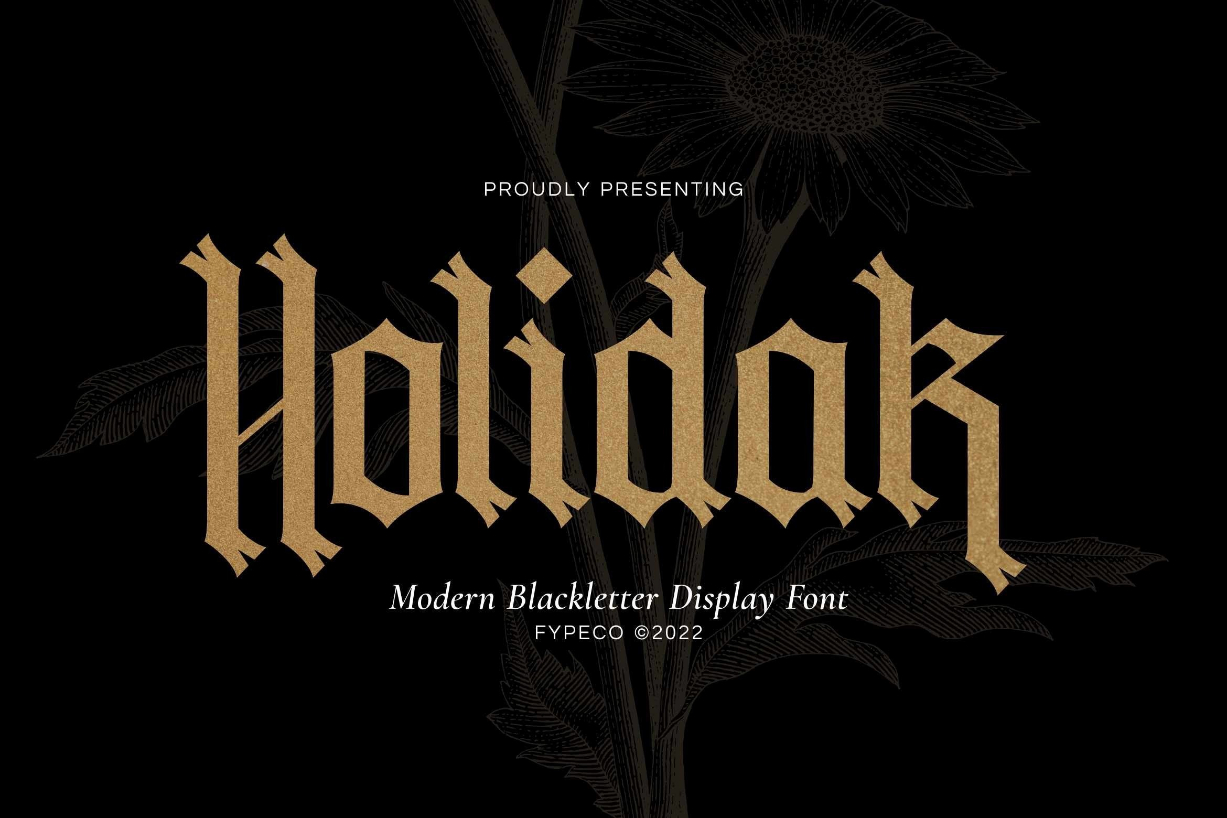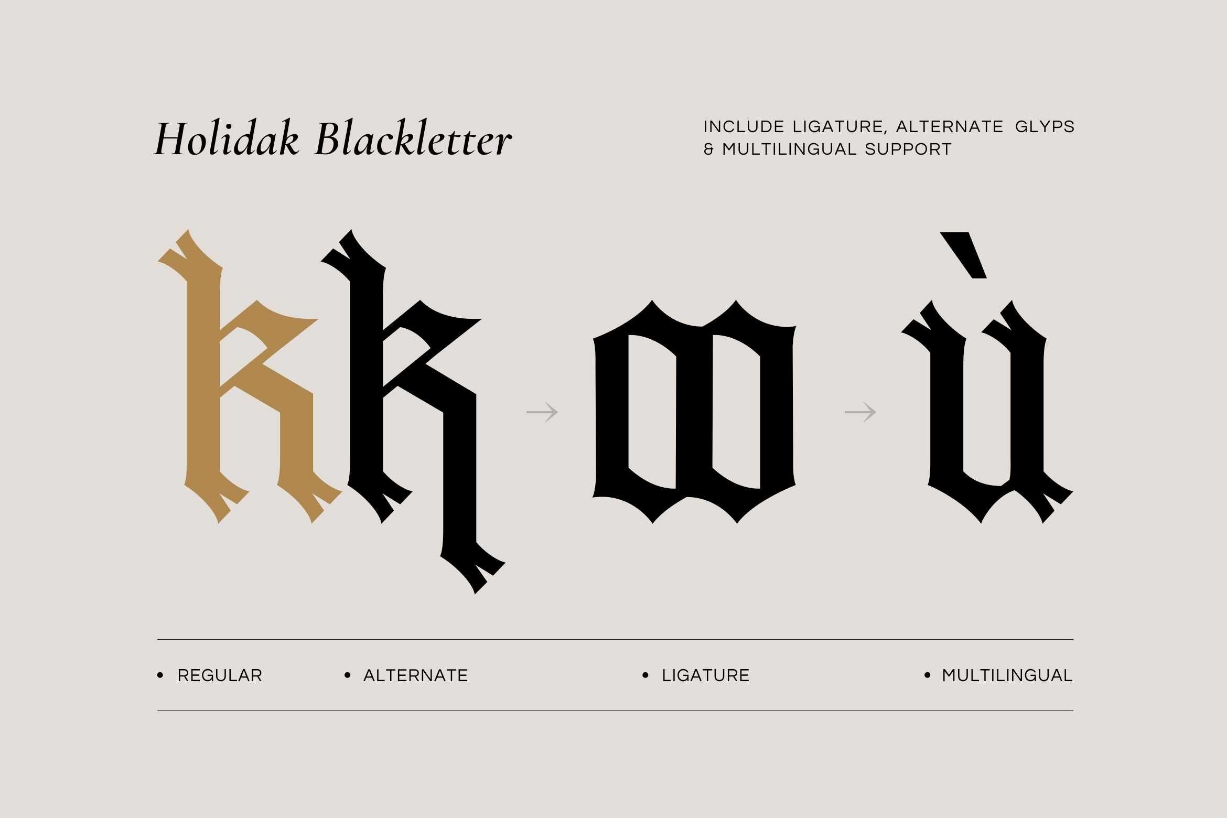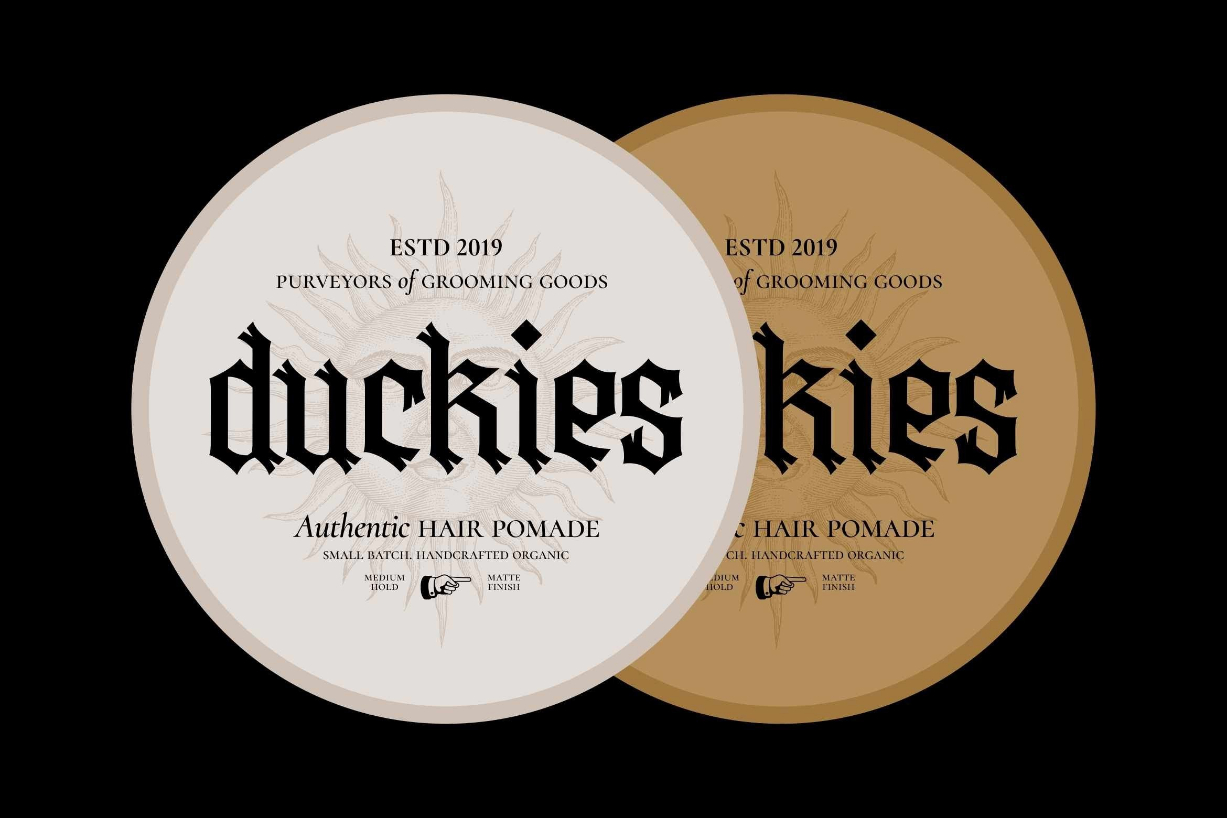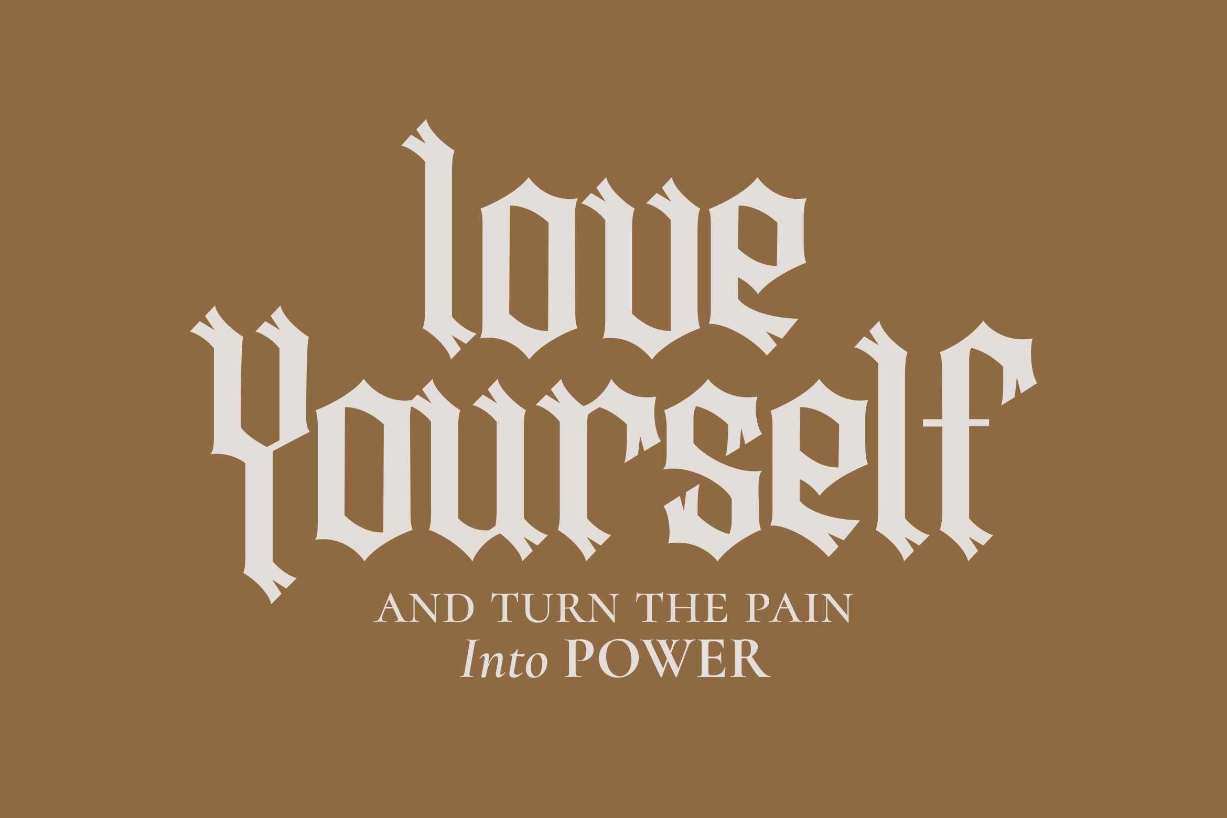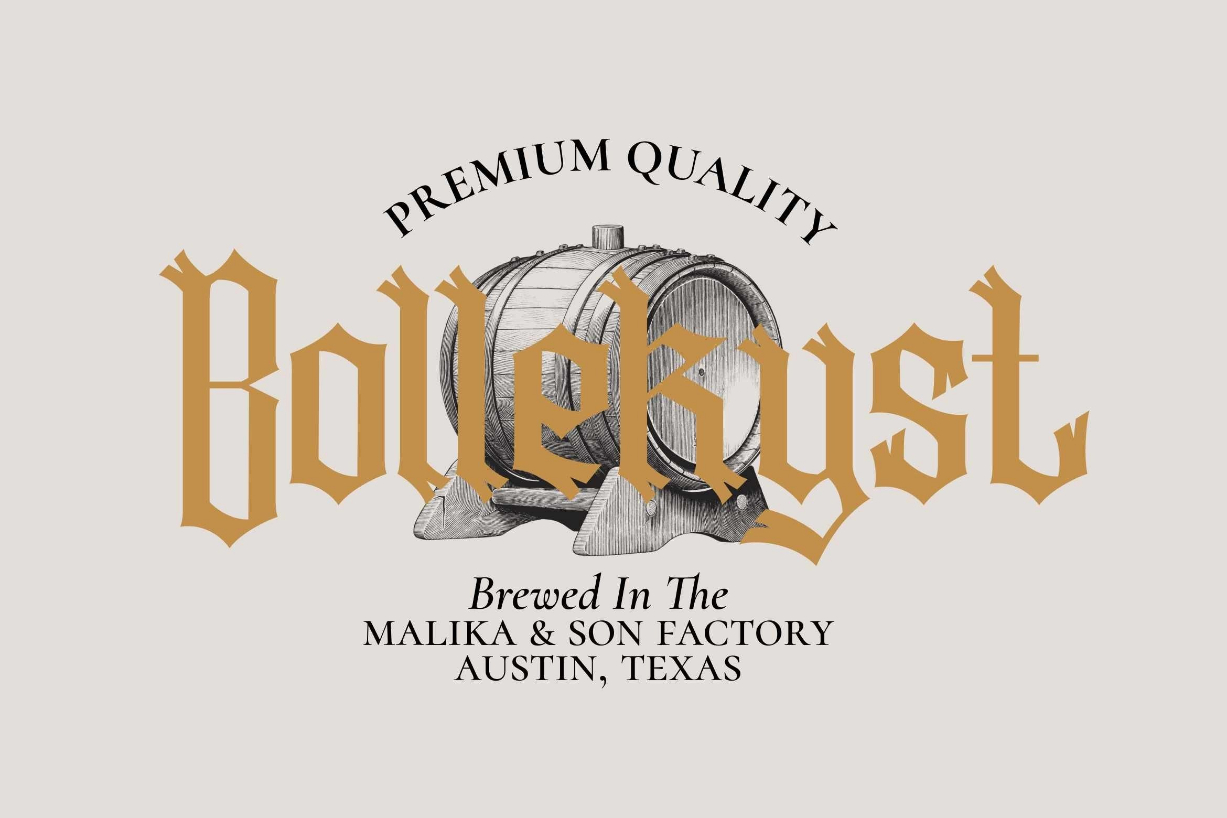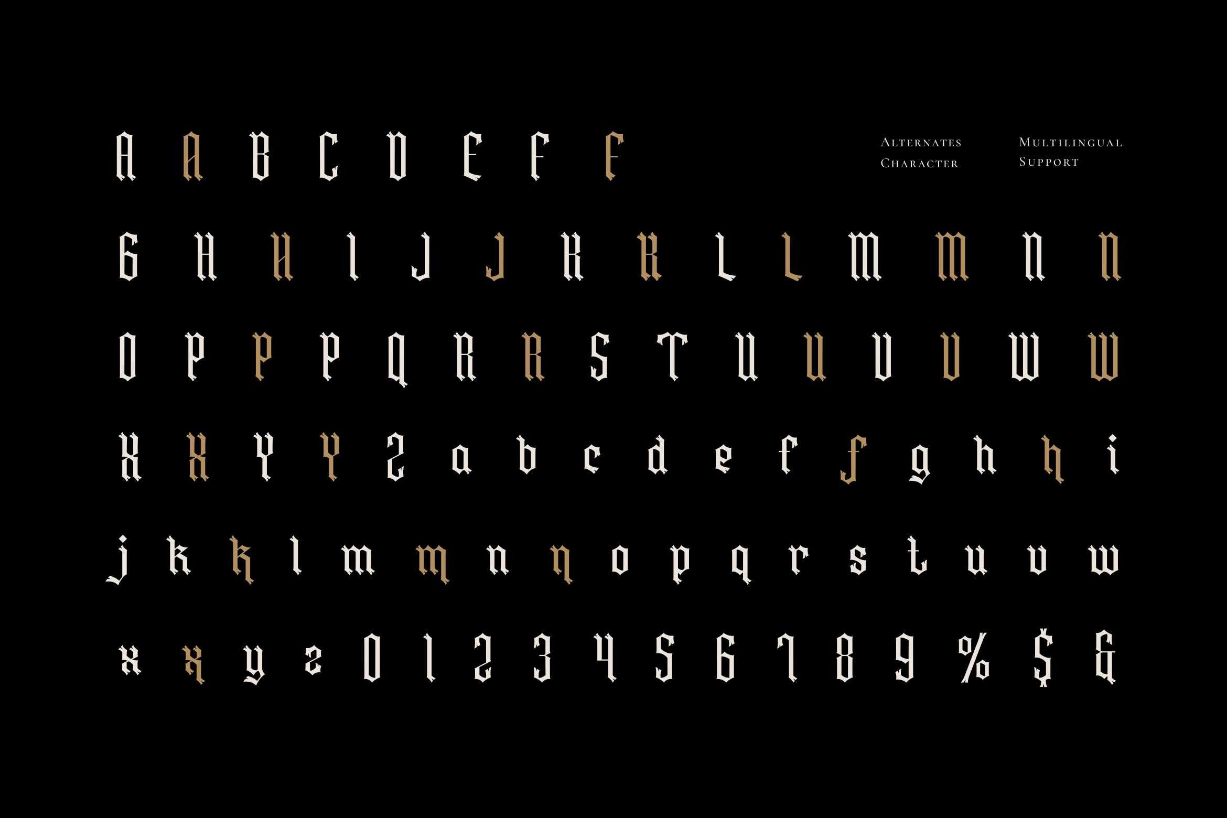
About Holidak Font
Holidak is a blackletter font with a modern style. This font is perfect for poster designs, branding, packaging, logos, apparel (t-shirts, jackets,) cards, tattoos, or other design needs. This font is PUA encoded, which means you can access all of the glyphs and swashes with ease!